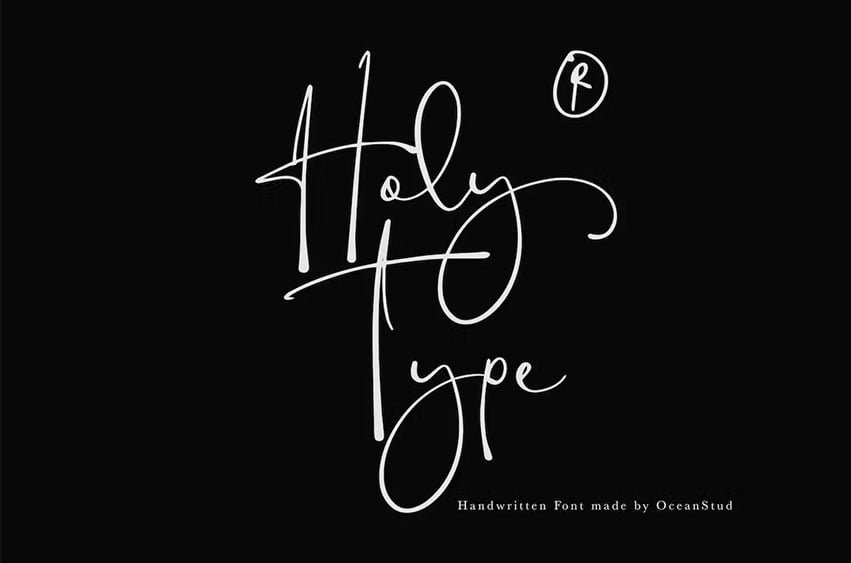
Holy Type Font is a handwritten font inspired and dedicated or consecrated to God or a religious typeface, meaningful of type.
Holy Type Font Preview